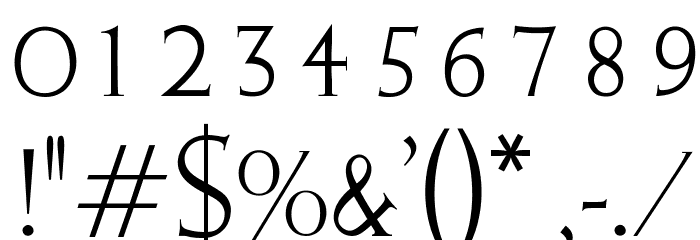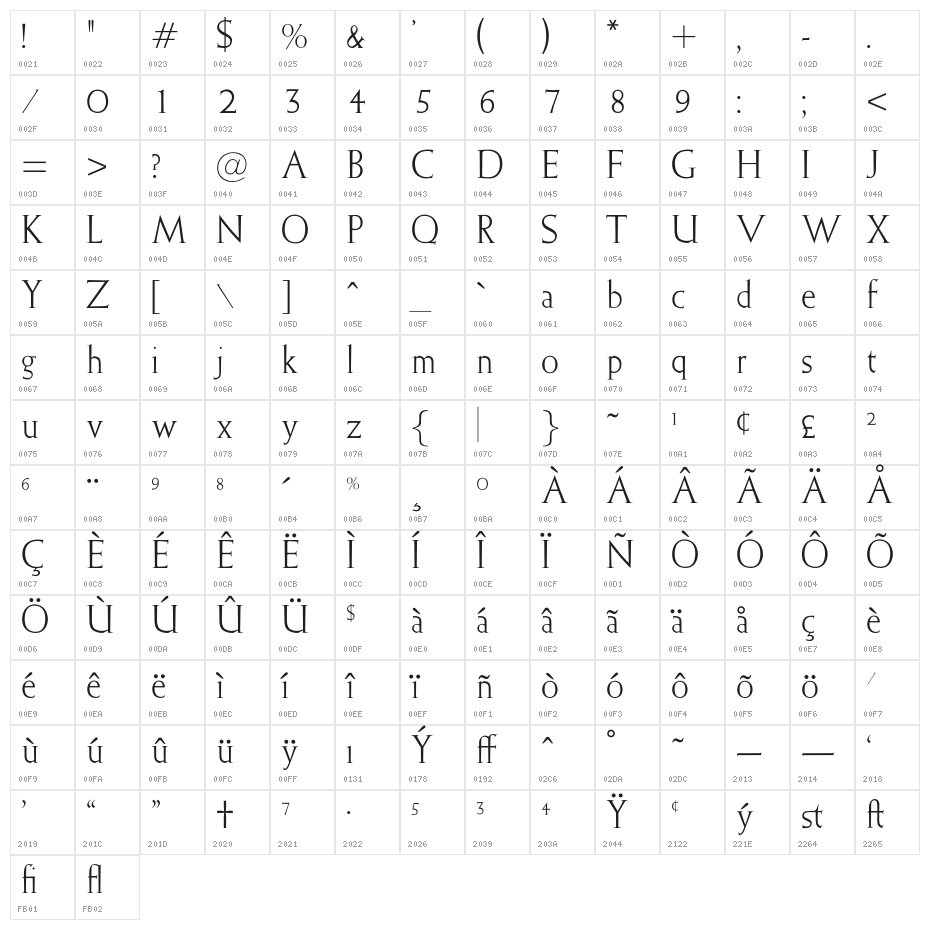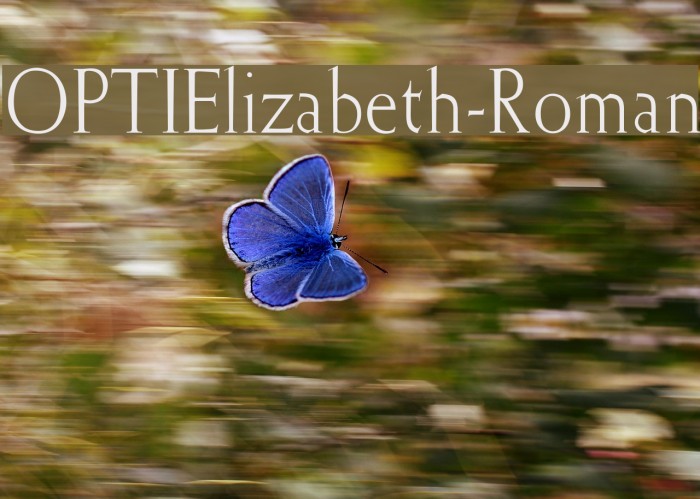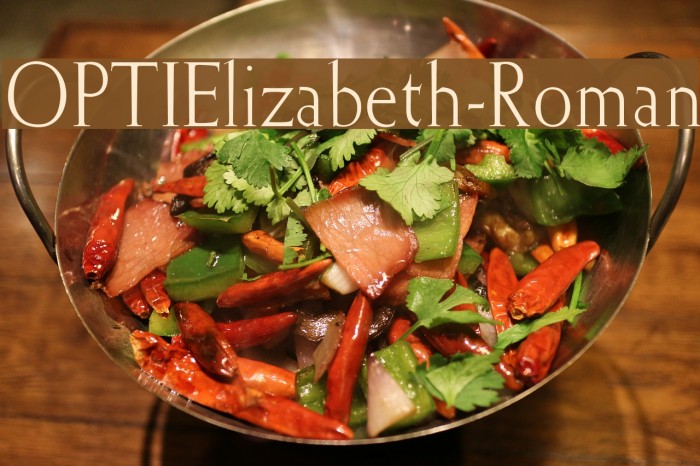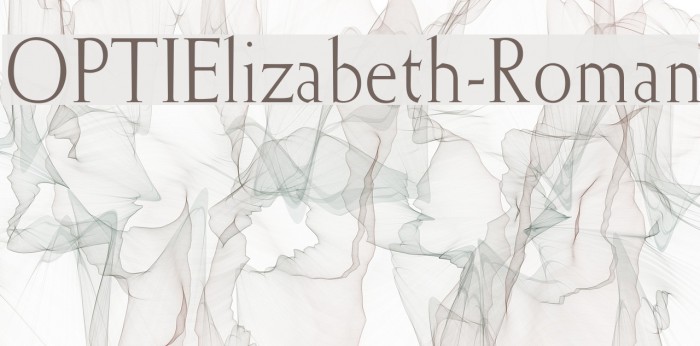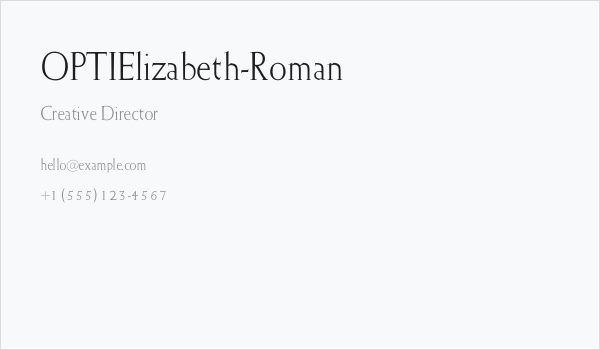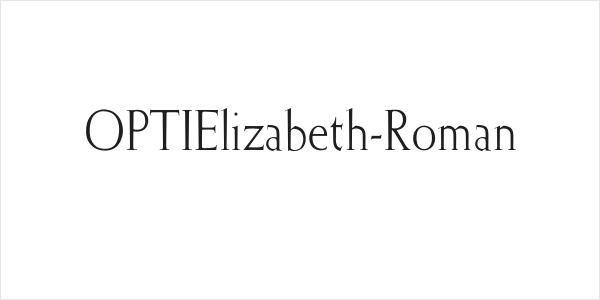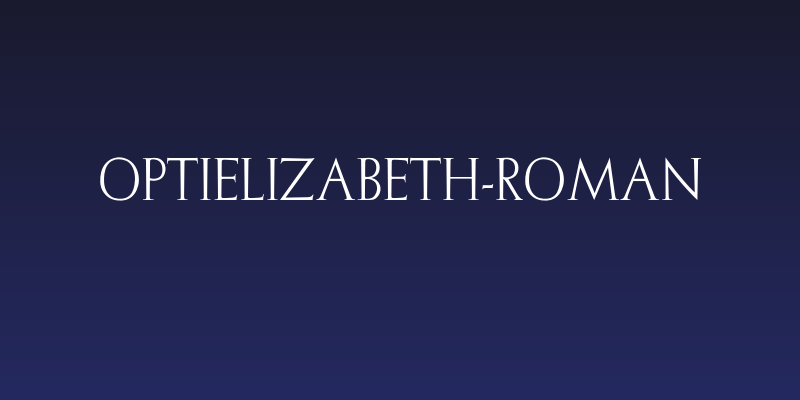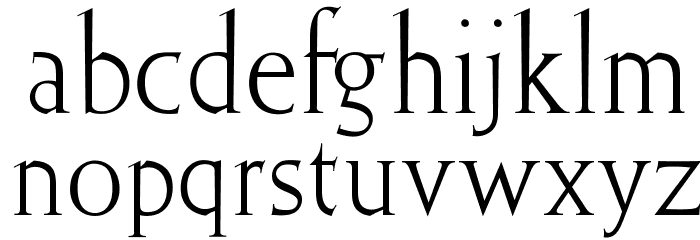
OPTIElizabeth-Roman Font
OPTIElizabeth-Roman Description
This font exhibits a classic and elegant serif style, characterized by its refined and sophisticated appearance. The uppercase letters are tall and stately, with a slight flair at the ends of the strokes, giving them a touch of grandeur. The lowercase letters maintain a consistent style, with smooth curves and a balanced proportion that enhances readability. The numerals are clear and distinct, matching the overall aesthetic of the font. Special characters are well-integrated, maintaining the font's cohesive look. This font's design is reminiscent of traditional Roman typefaces, making it suitable for formal and historical contexts.
| Proposed Projects | Ideal for book covers, formal invitations, historical documents, and branding that requires a touch of elegance. |